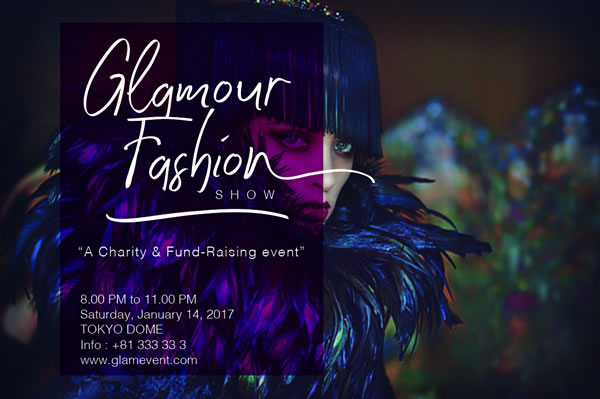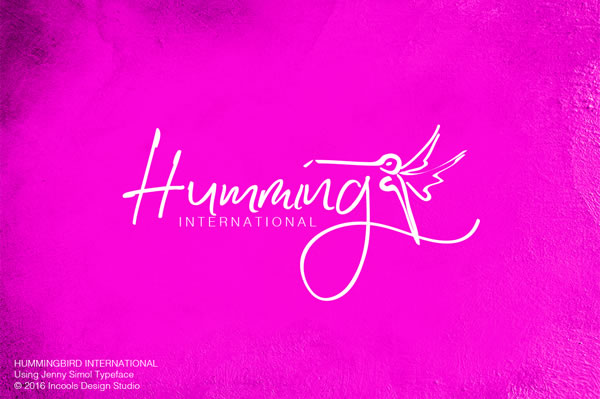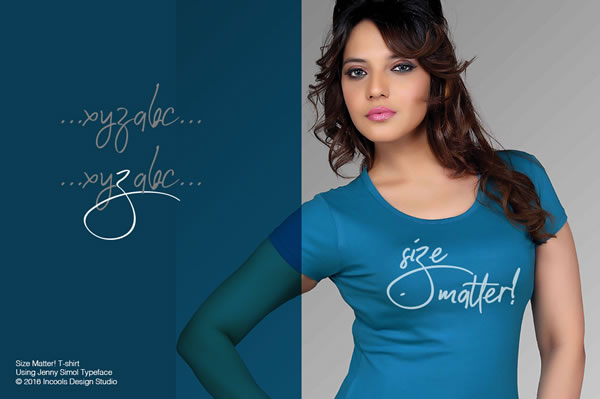
Introduction to Jenny Simol Font
Jenny Simol is a natural handwritten script font created by the Incools Design Studio.
Jenny Simol is a natural handwritten script font created by the Incools Design Studio. This fluid font comes with 2 fonts: Jenny Simol Regular Jenny Simol Swashes
Key Features of Jenny Simol Font
Why Choose Jenny Simol Font?
Jenny Simol Font offers exceptional quality and versatility, making it a valuable addition to your design toolkit. Whether you’re creating for personal projects or commercial use, Jenny Simol Font delivers professional results.